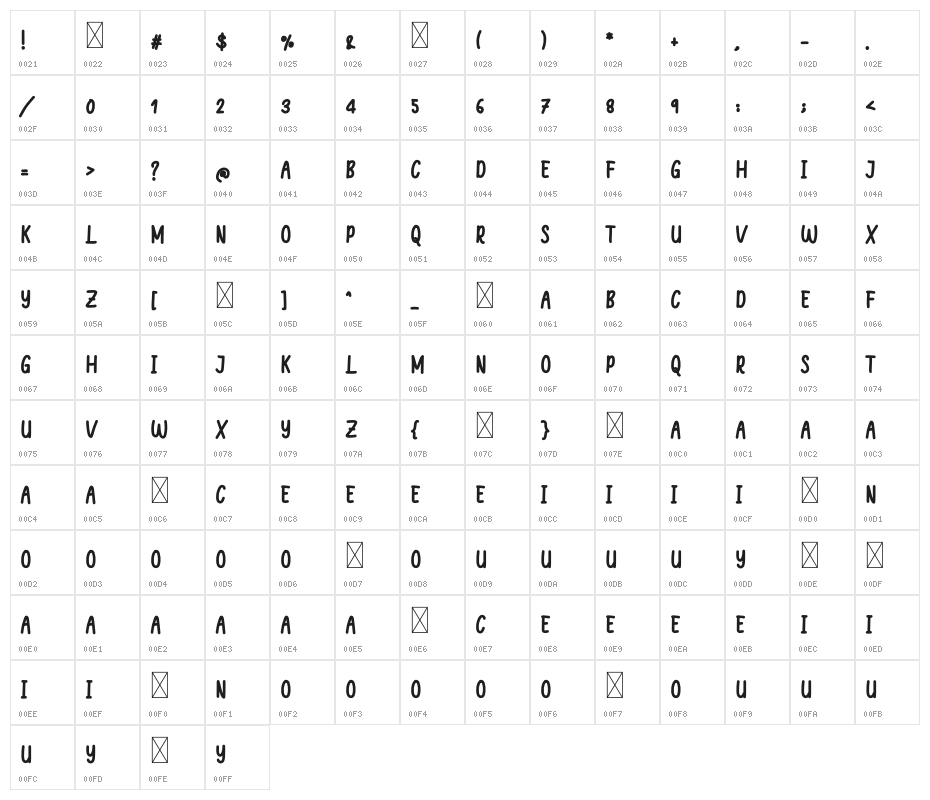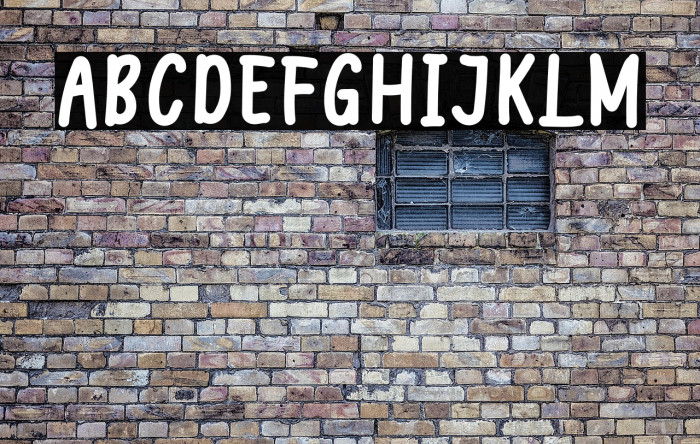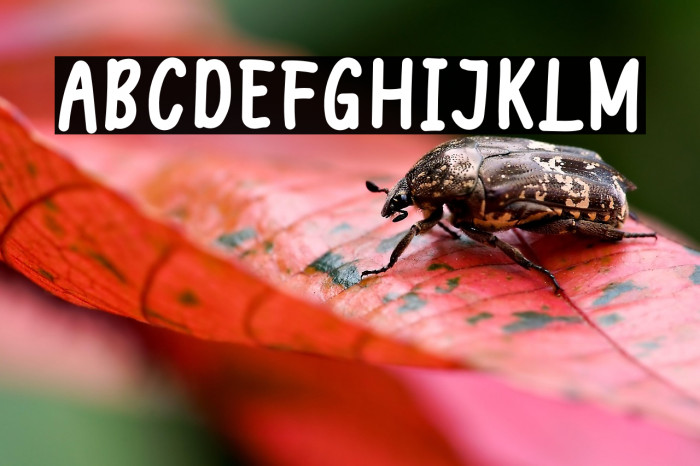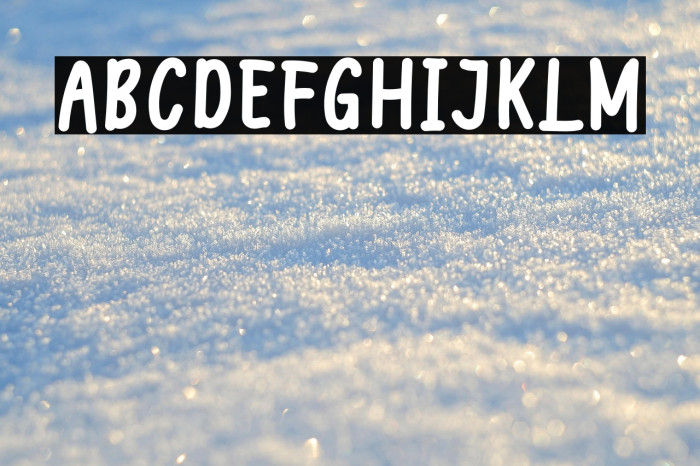
Welcome December Font
Welcome December Description
This font features a playful and casual handwritten style, characterized by its rounded and slightly irregular letterforms. The strokes are consistent in thickness, giving it a uniform appearance while maintaining a friendly and approachable vibe. The characters are well-spaced, ensuring readability even at smaller sizes. The font includes a full set of uppercase and lowercase letters, numerals, and a variety of special characters, making it versatile for different design needs. Its informal style makes it suitable for projects that require a personal touch.
| Overall Style | Casual, Playful |
| Use Case | Headlines, Informal text, Branding |
| Proposed Projects | Ideal for greeting cards, children's books, casual branding, and social media graphics. |